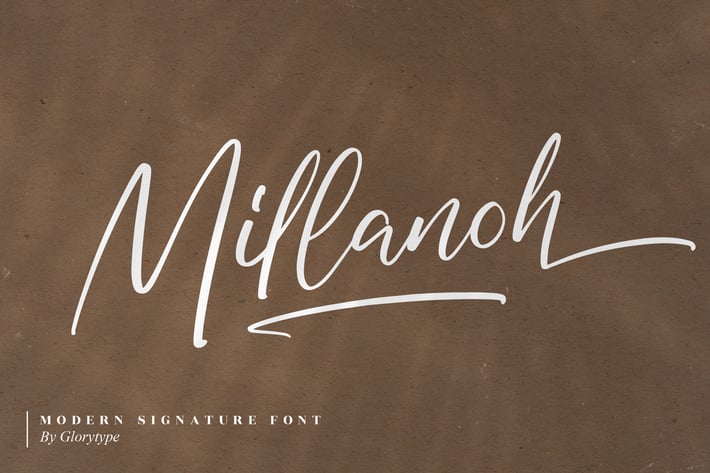
Millanoh Modern Signature Font
Millanoh is a sleek and stylish handwritten typeface designed to bring an elegant yet contemporary vibe to your projects. With its smooth strokes and natural flow, this font delivers a refined handwritten look that feels both personal and professional. Perfect for branding, wedding designs, social media posts, and creative projects where you want a touch of sophistication.
+ Modern handwritten signature style
+ Elegant and natural flowing strokes
Add a graceful and modern handwritten touch to your designs with Millanoh, the signature font that blends sophistication with creativity.